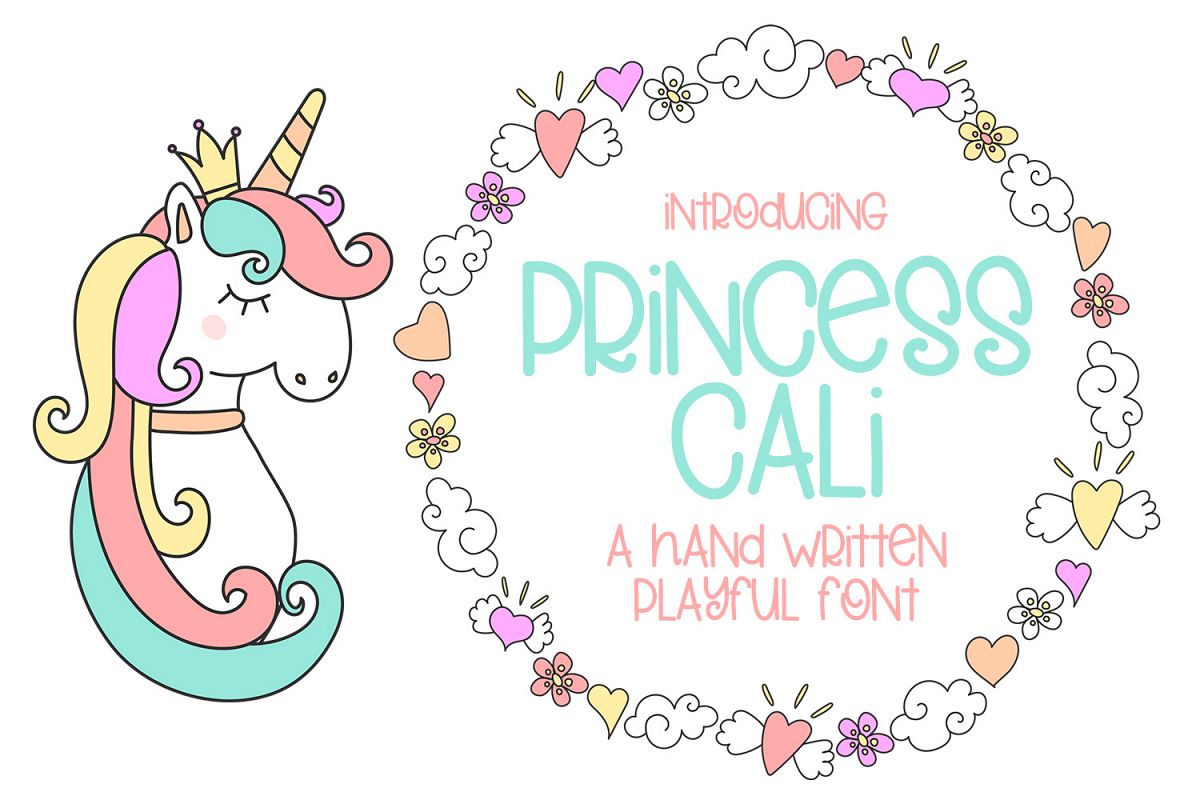
Princess Cali - A Hand Written Playful Font
Introducing Princess Cali - a playful hand written font. Perfect for shirts, mugs, wall art and so much more.